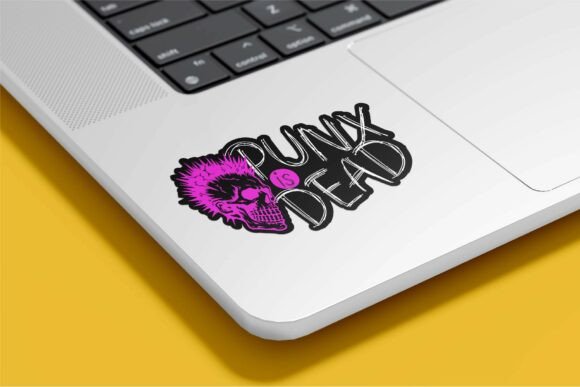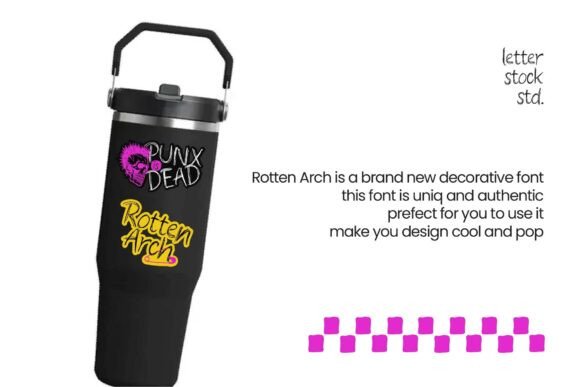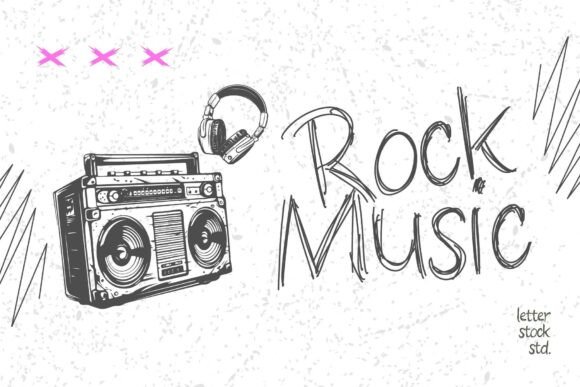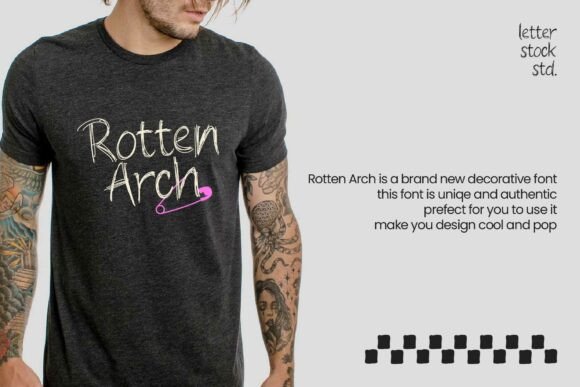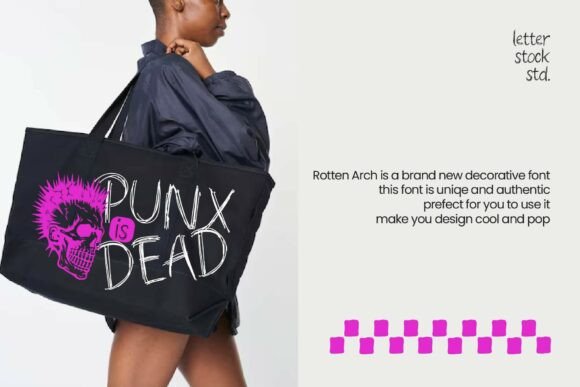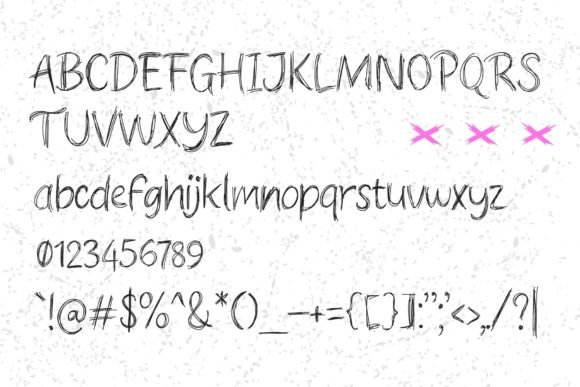
Introduction to Rotten Arch Font
As a designer, have you ever felt the need to break free from the monotony of clean and polished typography? Do you yearn for a design resource that captures the raw energy and rebellious spirit of your creative project? You’re not alone. For those who crave a more authentic and edgy aesthetic, the Rotten Arch Font is here to shake things up.
This bold and imperfect font is a game-changer for designers who want to add a touch of chaos to their work. With its scribbled lines and distorted forms, Rotten Arch Font delivers a strong visual attitude that’s perfect for abstract compositions, punk-inspired visuals, and grunge posters.
Whether you’re working on a high-quality design project or just need a free download to spice up your creative workflow, Rotten Arch Font is a valuable resource that’s sure to grab attention and communicate raw creative energy. With its transparent background and high-quality design, this font is ready to be used in a variety of creative projects, from underground music artwork to rebellious merchandise.
Key Features of Rotten Arch Font
- Unique, distressed design ideal for creative projects and design resources that require a high-quality, vintage aesthetic.
- Comes in two font styles: regular and bold, providing flexibility for designers to choose the perfect font for their project.
- Can be used for a variety of design applications, including logos, typography, and other creative projects that require a unique, distressed look.
Honest Review: Rotten Arch Font
I recently had the chance to work with the Rotten Arch Font, and I must say it’s been a game-changer for my creative projects. ✨ This font is a great addition to any design resource, offering a unique and high-quality look that’s sure to impress.
Here are some of the features that I love about the Rotten Arch Font:
- Unique and creative style
- Some users may find the font too bold or overpowering
- Limited customization options
Overall, I’m really impressed with the Rotten Arch Font. It’s a great addition to any design resource, and I would definitely recommend it to fellow designers. ⚠️ Just be aware of the potential limitations and use it thoughtfully in your creative projects.
Rotten Arch Font
The Rotten Arch Font is a high-quality design resource perfect for creative projects. This free download offers a unique and versatile font that can elevate any design.
The Rotten Arch Font is perfect for:
Branding and logo design.
Graphic design and illustrations.
Print and digital marketing materials.
Presentations and documents.